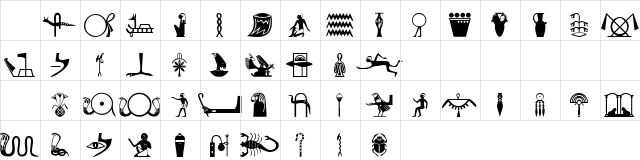
101! HieroglyphiX IV Regular
Design Context for 101! HieroglyphiX IV Typeface
101! HieroglyphiX IV is a composed and adaptable typeface that performs quietly and consistently across a wide range of design contexts.